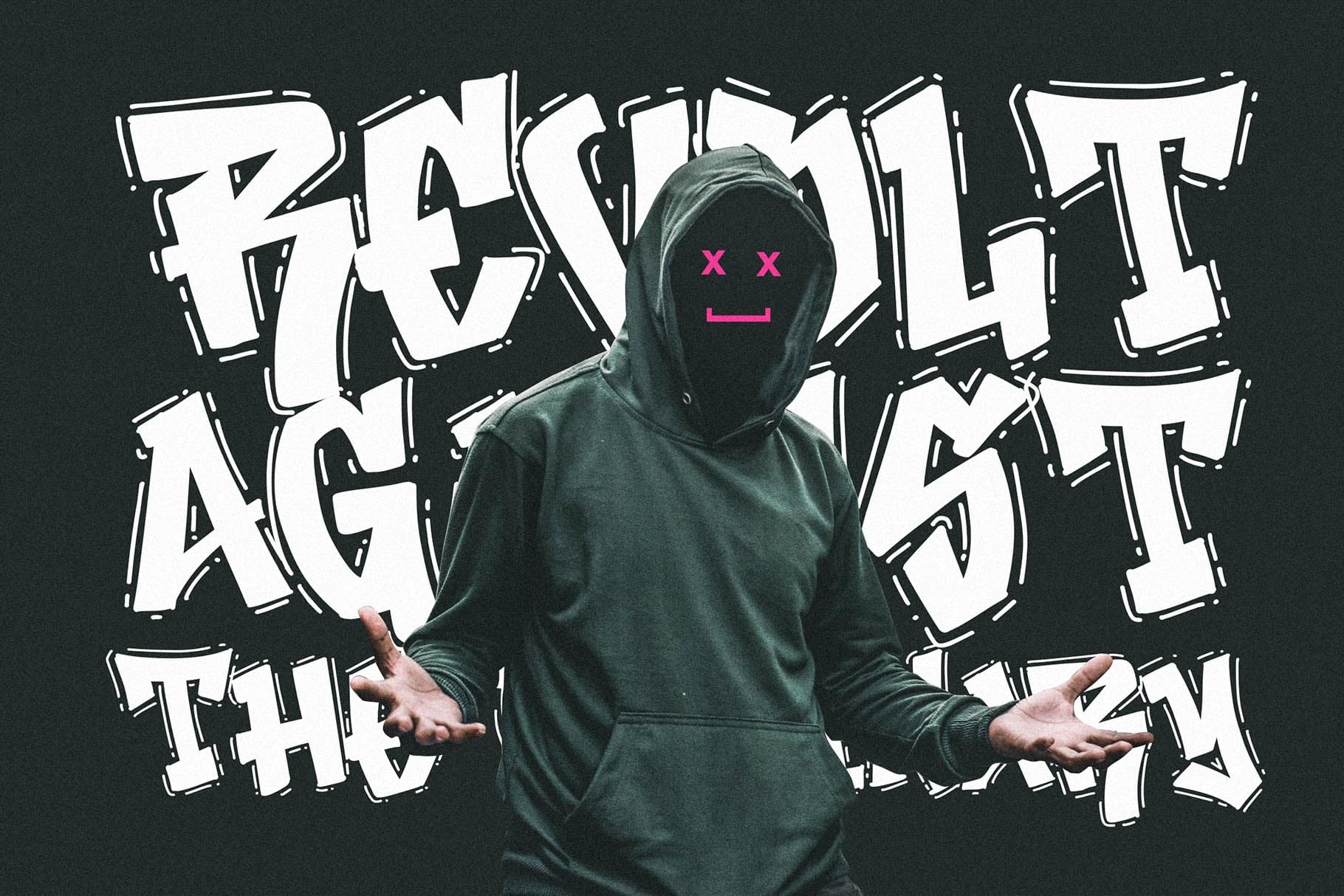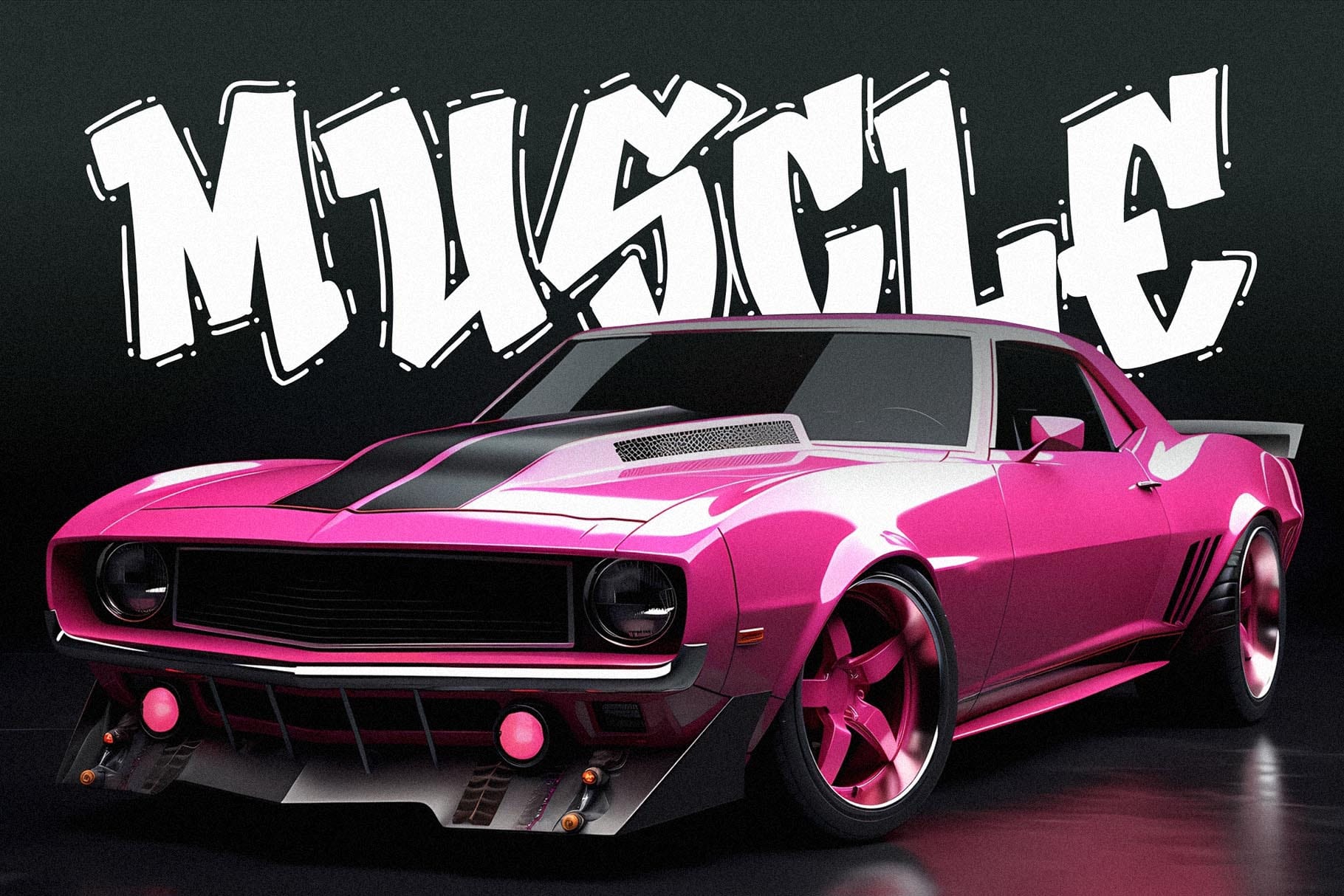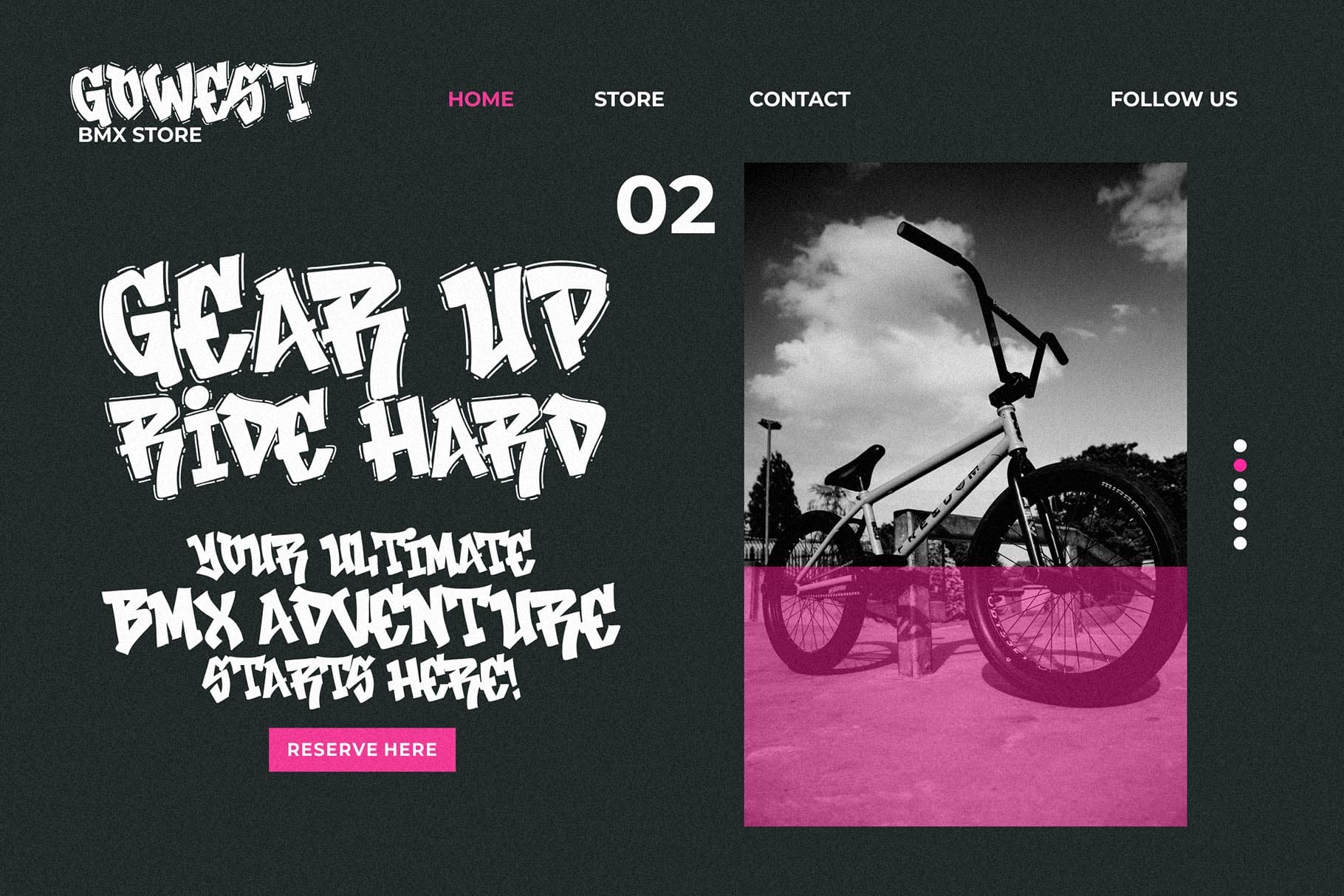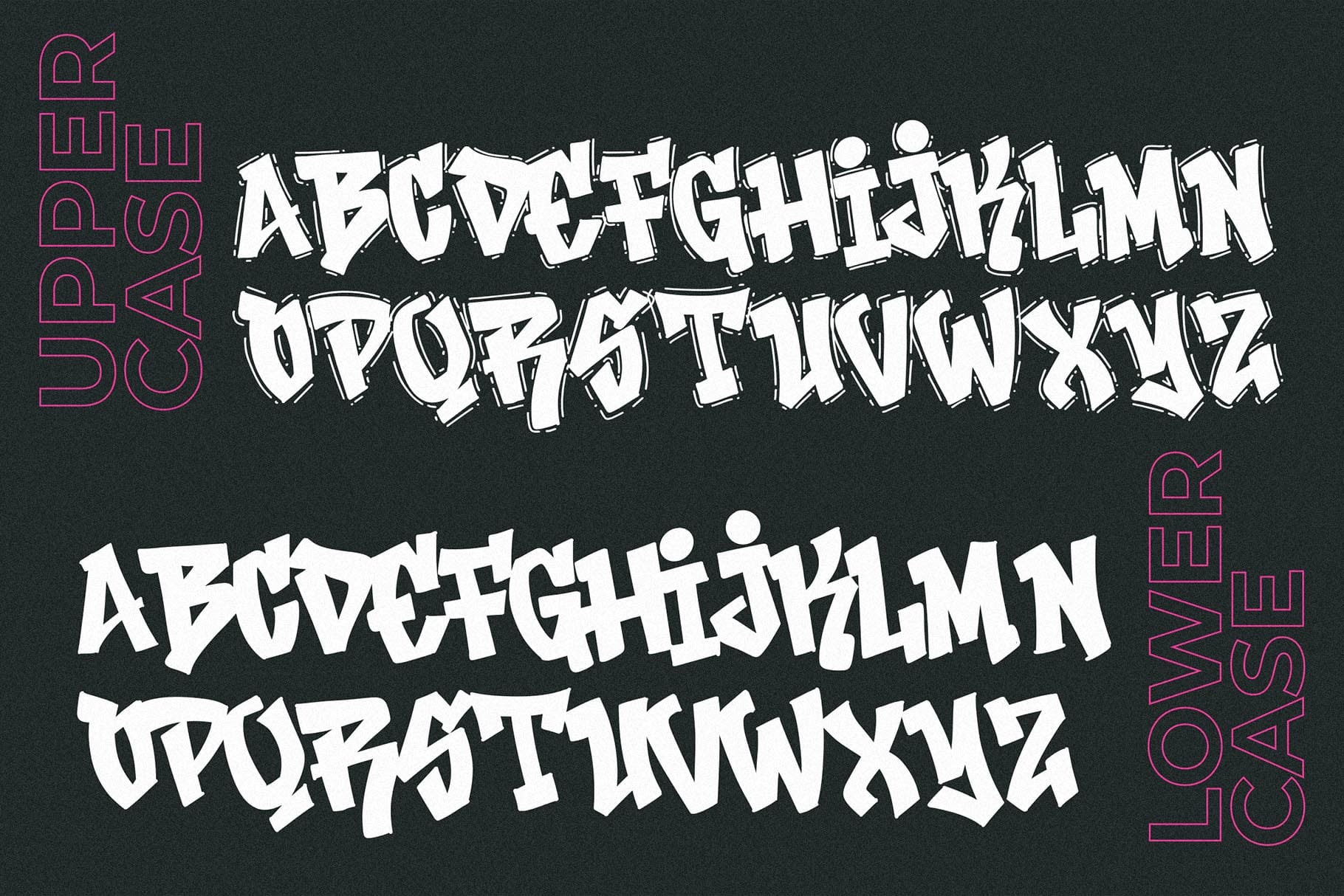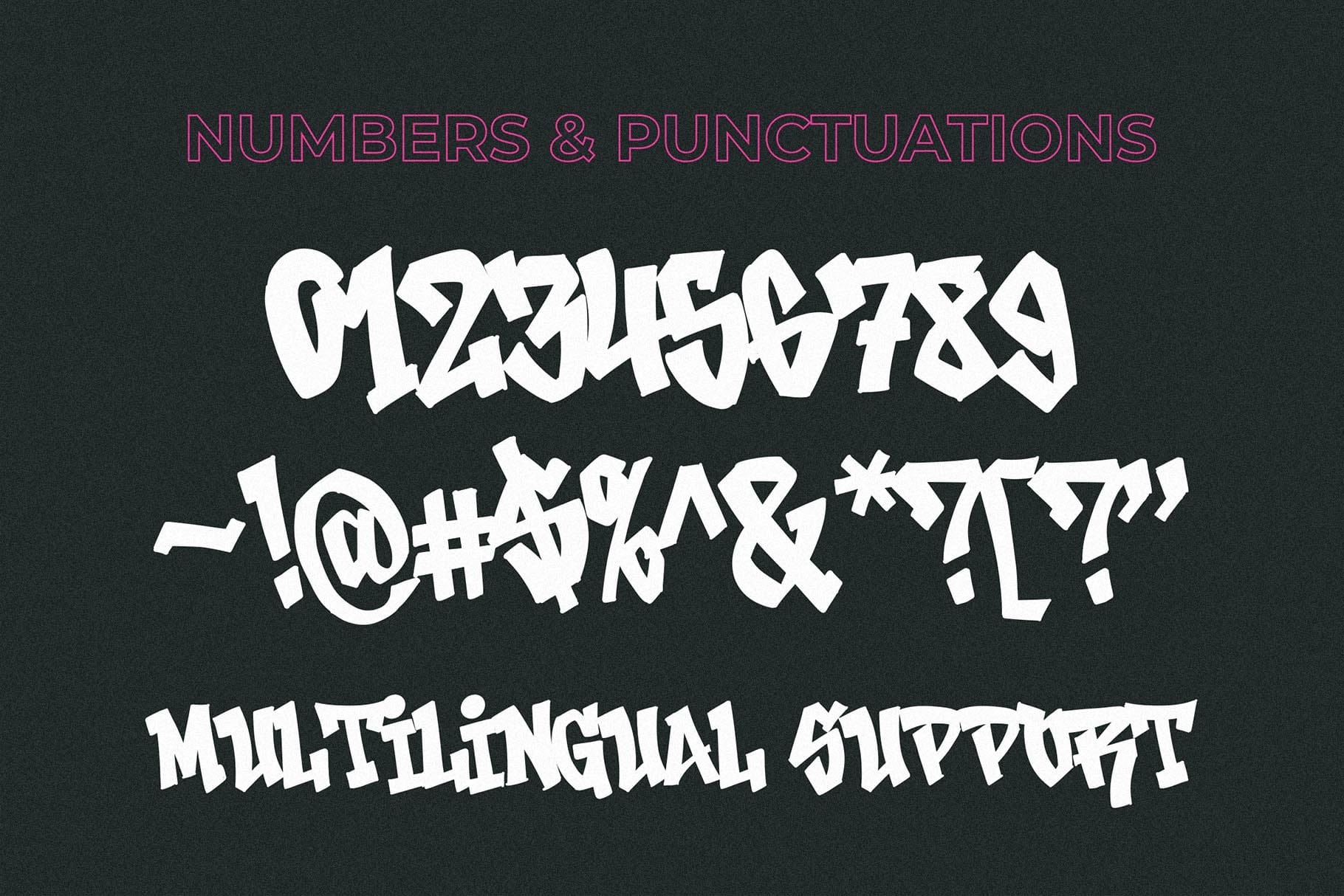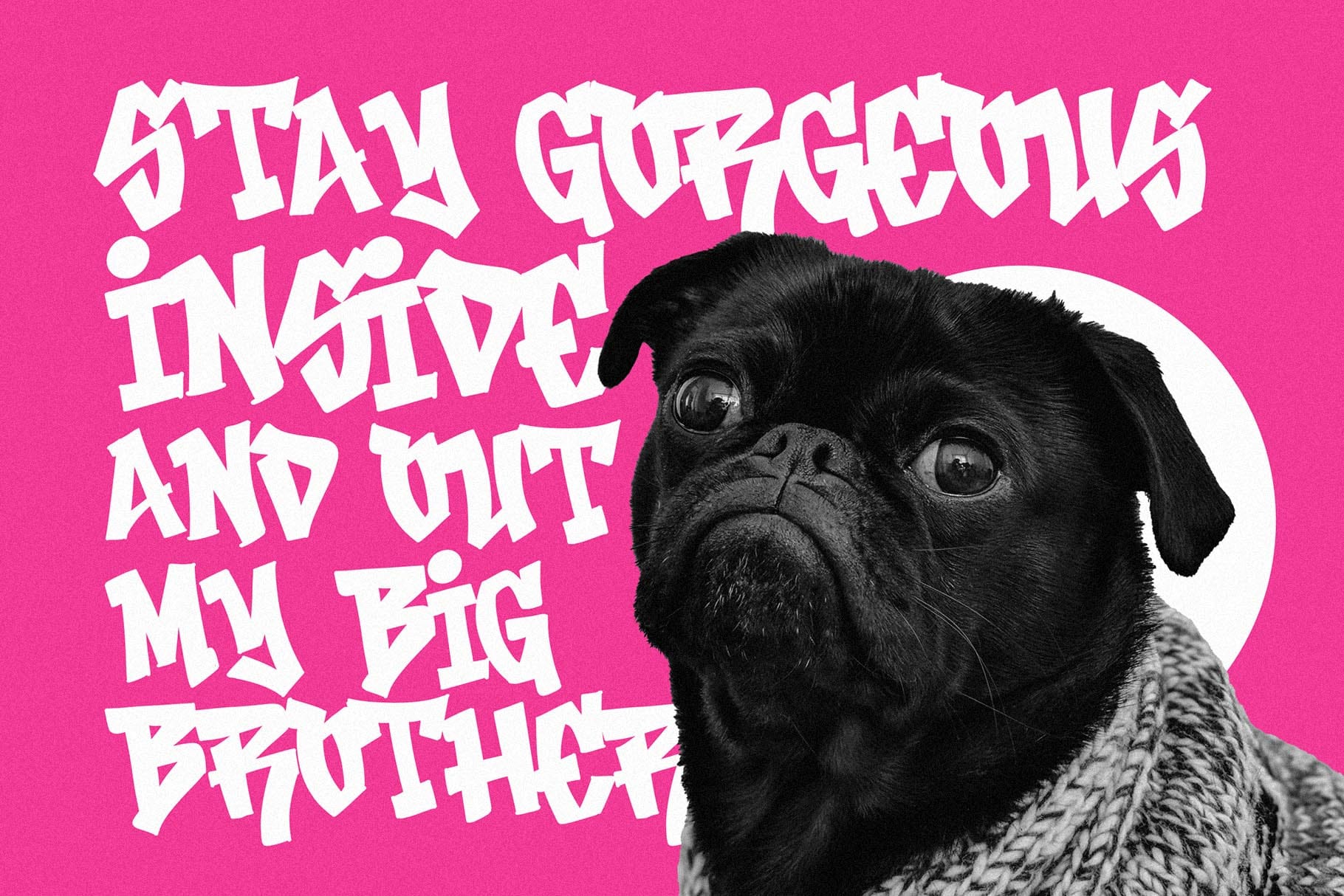
Reign Beats Urban Graffiti Font for Bold Street Visuals
Reign Beats is an urban graffiti font created for designs that need energy, rhythm, and a strong street-inspired attitude. With its expressive visual personality, this font is made for projects that want to feel bold, youthful, creative, and impossible to ignore.
Designed for modern creators, Reign Beats works beautifully across branding, apparel graphics, music visuals, posters, packaging, digital artwork, and social media content. It gives your words a louder presence without making the design feel overworked.
For designers building streetwear labels, event graphics, album covers, skate-inspired visuals, or bold merchandise, Reign Beats brings a raw urban edge that feels confident and highly visual. It is the kind of font that can turn a simple phrase into the main attraction of the layout.
Reign Beats carries the attitude of graffiti lettering with a practical display-font structure. The style feels expressive, urban, and visually direct, making it a strong choice for headline-driven design.
Its graffiti-inspired look gives your work a sense of movement and personality. It can feel rebellious, creative, loud, playful, or edgy depending on how you pair it with color, texture, photography, and layout composition.
Use it when your design needs to speak with confidence. Reign Beats is especially useful for projects that need a strong typographic voice, whether you are creating a streetwear drop, a bold poster, a youth-focused brand identity, or a digital product that needs more character.
Reign Beats is ideal for visual projects that need an urban, expressive, and high-impact display style. It works best in large sizes where the graffiti-inspired details can become part of the overall design identity.
Use Reign Beats for streetwear logos, clothing graphics, t-shirt designs, hoodie prints, poster titles, music event flyers, album artwork, YouTube thumbnails, packaging labels, sticker designs, skate culture graphics, sports graphics, brand marks, social media posts, quote posters, and creative merchandise.
For small businesses and digital product sellers, Reign Beats can help create products that feel bold and memorable. It is a strong option for printable wall art, editable templates, POD merchandise, and branding kits that need a street-style headline font.
For creative studios and brand designers, it can add contrast to clean layouts. Pair it with simple sans serif typography, minimal color systems, or gritty textures to build a strong visual hierarchy.
• Urban graffiti display style
• Standard characters
• Punctuation
• Stylistic alternate
Designers love fonts that can carry a layout without needing too many extra effects. Reign Beats gives you that kind of presence. Its graffiti-inspired style brings character straight into the words, making it useful for fast-moving design workflows where the headline needs to do the heavy lifting.
For apparel designers, Reign Beats can help create strong text-based designs for shirts, hoodies, caps, and streetwear collections. For poster designers, it adds a striking focal point that can work with photography, grunge textures, spray paint effects, or bold color palettes.
Brand owners can use it to build a visual identity that feels more expressive and less ordinary. Content creators can use it for thumbnails, reels, banners, and social media visuals that need instant impact. Crafters and digital product sellers can use it for printable designs, stickers, sublimation products, and downloadable artwork.
The included stylistic alternate gives designers an extra creative option when shaping words, while PUA encoding helps make the alternate accessible in compatible design workflows. With TTF, OTF, and WOFF included, Reign Beats is ready for both desktop design use and web-friendly projects where WOFF is needed.
For a strong graffiti-focused layout, pair Reign Beats with Greatboyz. This pairing works well for streetwear concepts, poster graphics, and expressive branding that needs a layered urban feel.
For another bold street-style direction, try combining it with Darksite. Use one font as the main headline and the other for supporting text, badges, or alternate visual accents.
Reign Beats is made for designers who want their typography to feel alive, confident, and connected to street culture. Use this urban graffiti font to create bold headlines, expressive branding, standout apparel, and visual projects that need more attitude from the first glance.